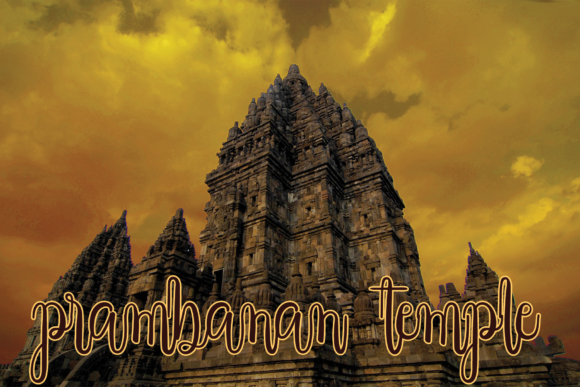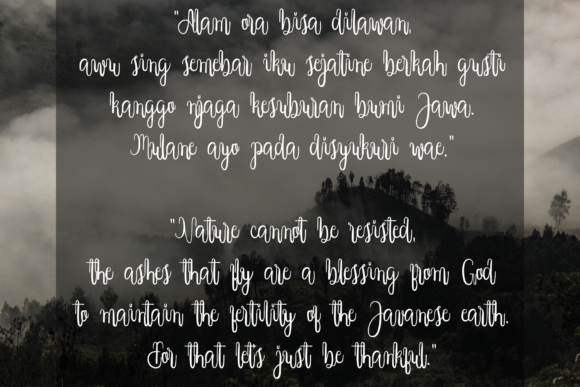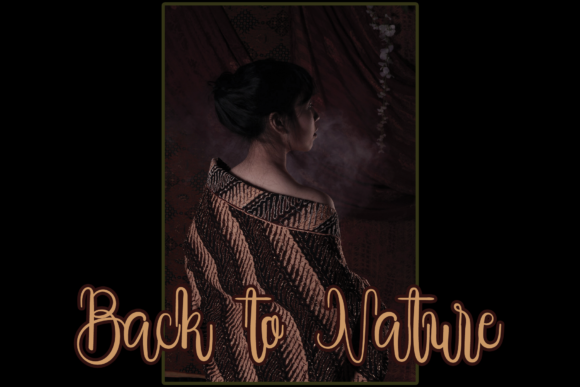
About Java Signature Font
Java Signature is a delightful and whimsical script font that brings a relaxed and carefree vibe to your designs. With its charming and unique style, this font is a valuable asset to any font library, as it has the ability to elevate any creation.
The playful nature of Java Signature shines through in its flowing and organic letterforms. Each character dances along the baseline with a sense of whimsy and grace, adding a touch of personality to your designs. Whether you’re designing greeting cards, logos, invitations, or any other creative project, Java Signature will infuse them with a joyful and lighthearted energy.
One of the remarkable features of Java Signature is its versatility. It seamlessly adapts to various topics and themes, making it suitable for a wide range of projects. Whether you’re working on designs related to weddings, fashion, beauty, food, or any other subject, Java Signature effortlessly complements and enhances the overall aesthetic.
Adding Java Signature to your font library opens up a world of creative possibilities. Its relaxed and whimsical nature allows it to bring a sense of charm and character to your designs, making them stand out from the crowd. The fluidity of the letters creates a sense of movement and liveliness, adding a touch of enchantment to every composition.
Furthermore, Java Signature’s potential goes beyond its visual appeal. It conveys a sense of warmth and approachability, making it perfect for personal branding, social media graphics, and any design that requires a friendly and inviting tone. It adds a personal touch and connects with the audience on a deeper level.
With its unique and captivating style, Java Signature breathes life into your designs, allowing you to create remarkable and memorable visuals. Its relaxed theme and lovely aesthetic make it an invaluable asset for any creative project. Embrace the whimsy of Java Signature and unlock its potential to elevate your designs and captivate your audience.